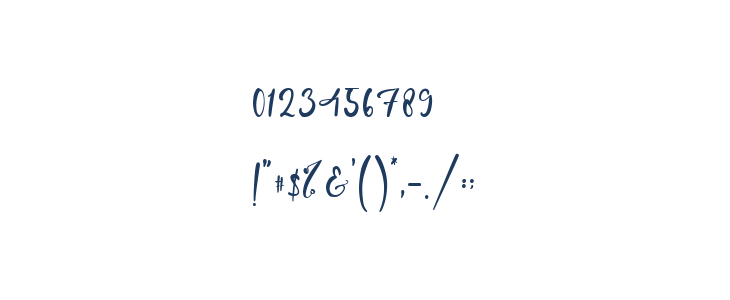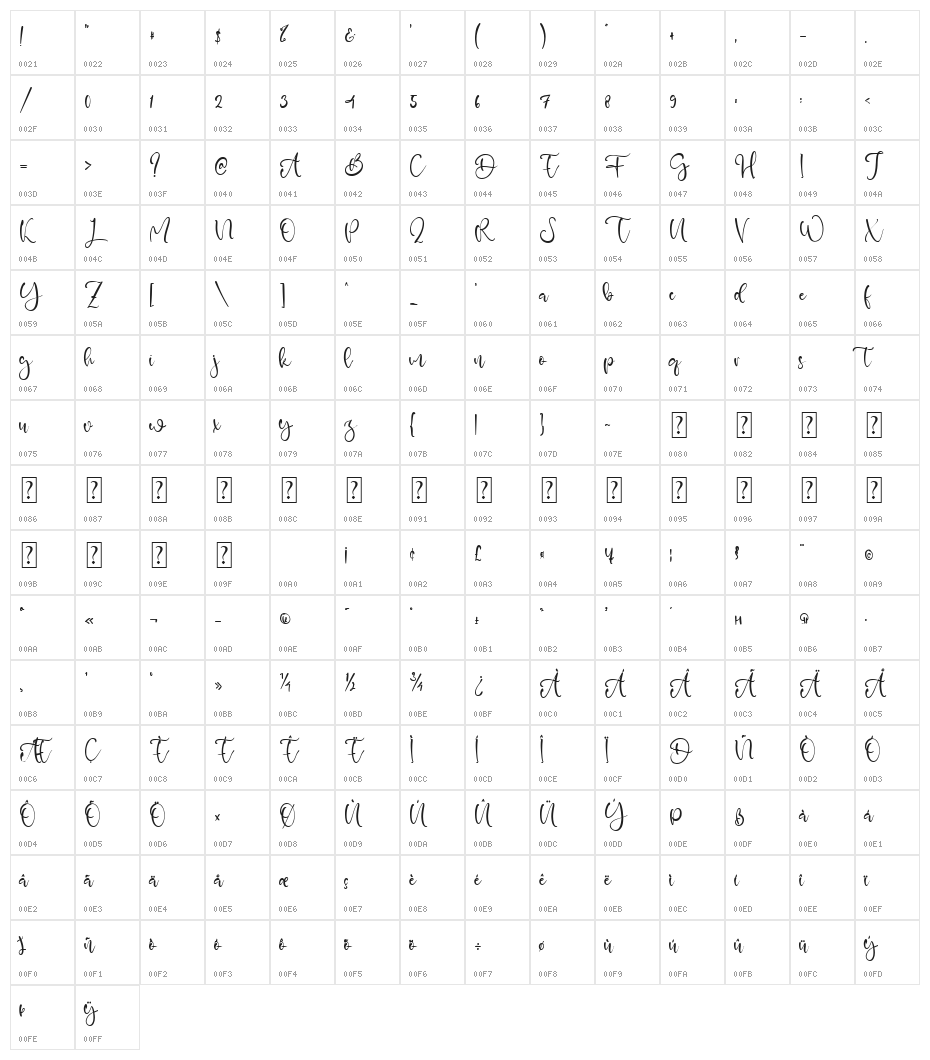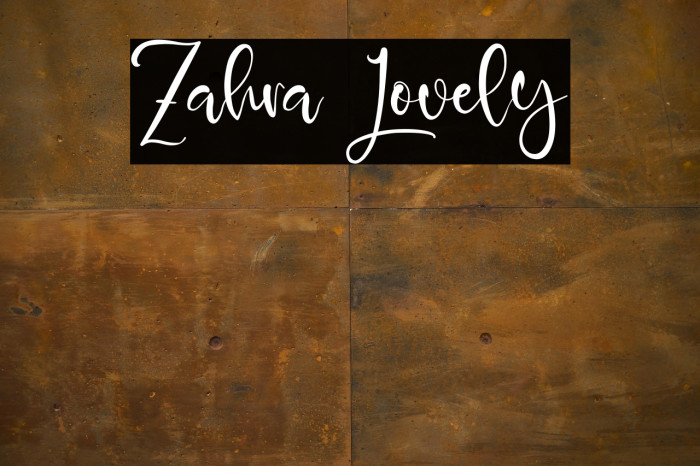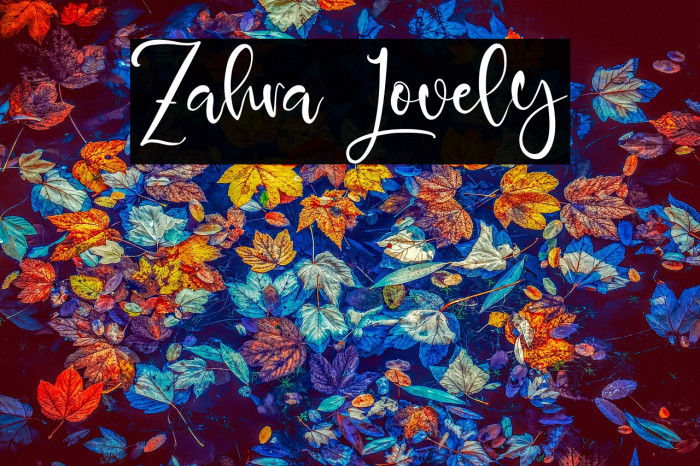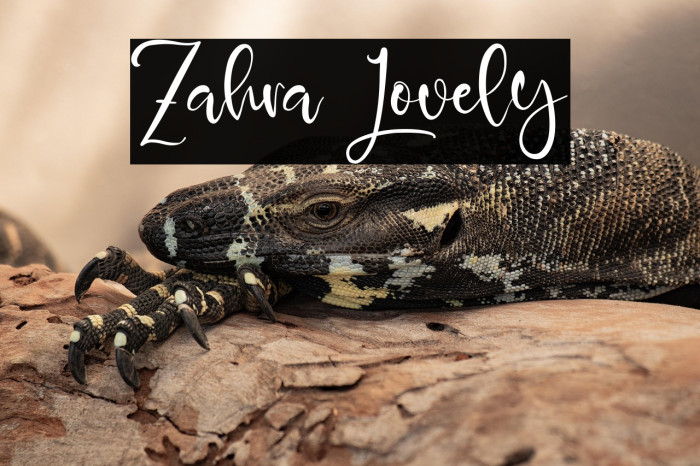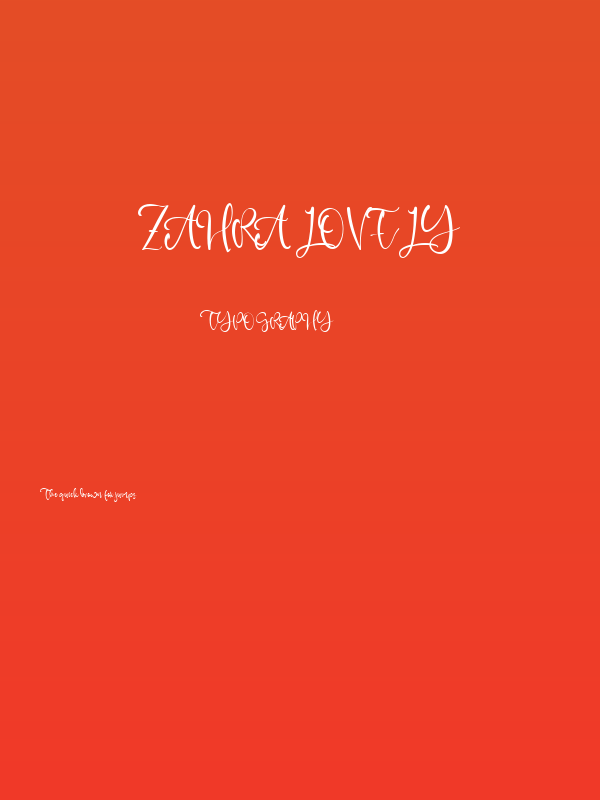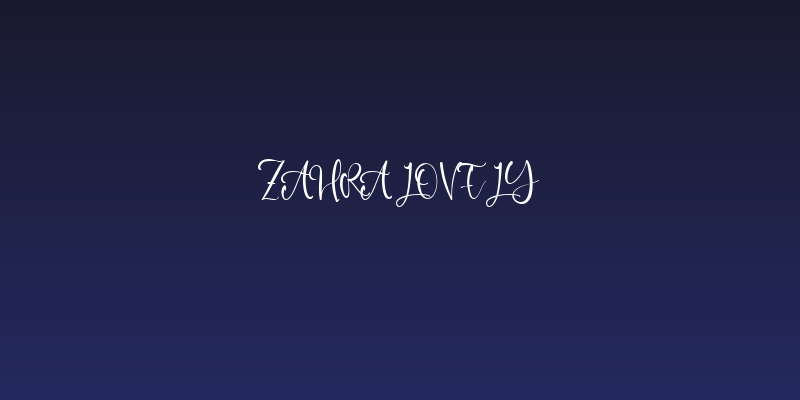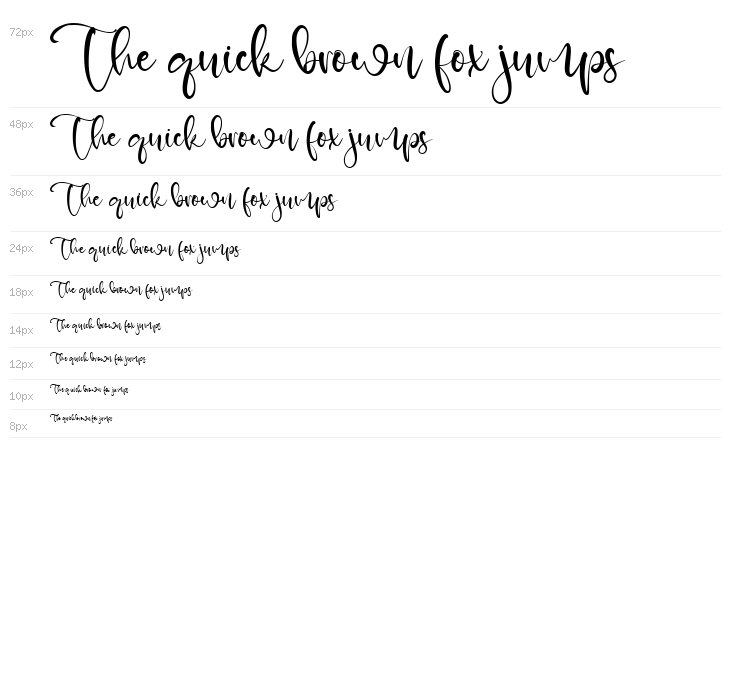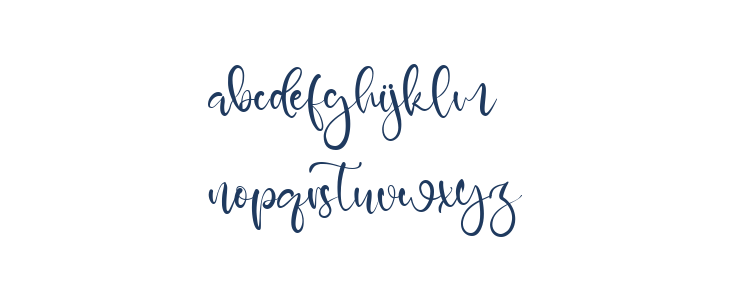
Zahra Lovely Font
Zahra Lovely Description
This font features an elegant and flowing script style, characterized by its smooth, cursive letterforms. The uppercase letters are ornate, with flourishes that add a touch of sophistication and charm. The lowercase letters maintain a consistent flow, enhancing readability while retaining a decorative flair. The numerals are styled to match the script, ensuring a cohesive look across all characters. Special characters are thoughtfully designed to complement the overall aesthetic, making this font suitable for a variety of creative applications.